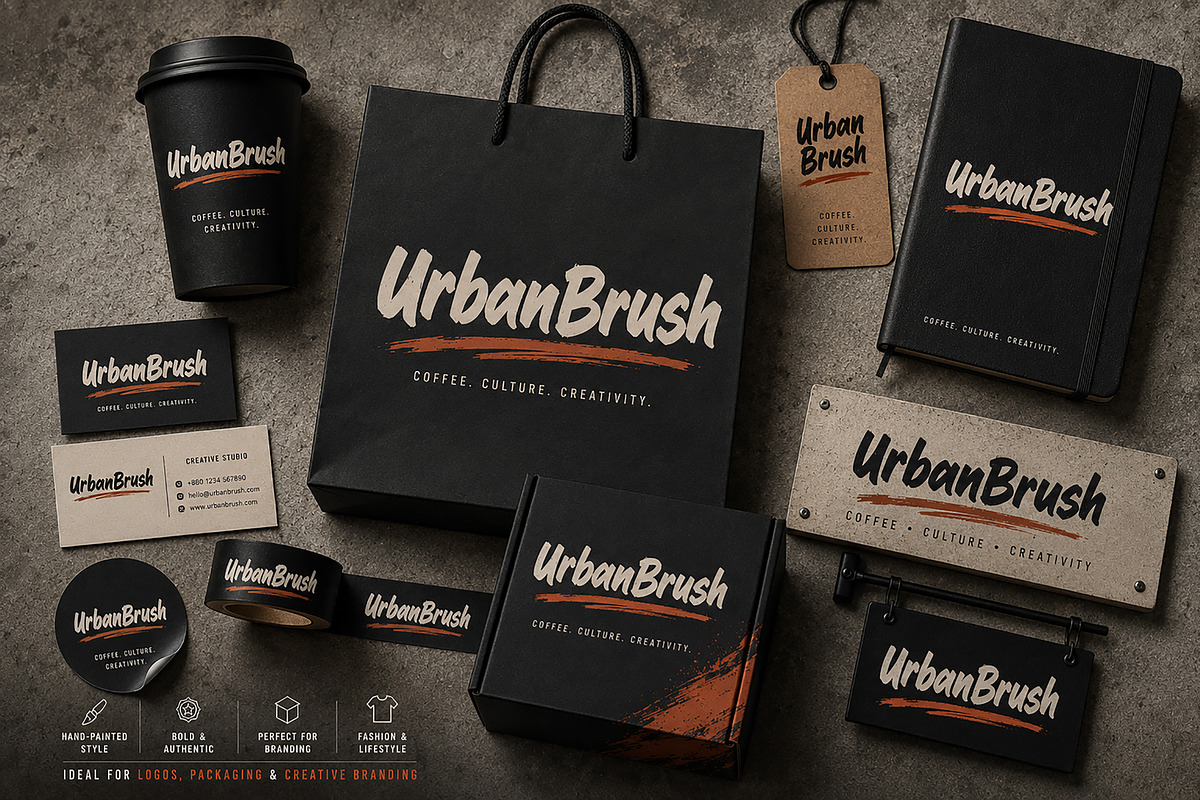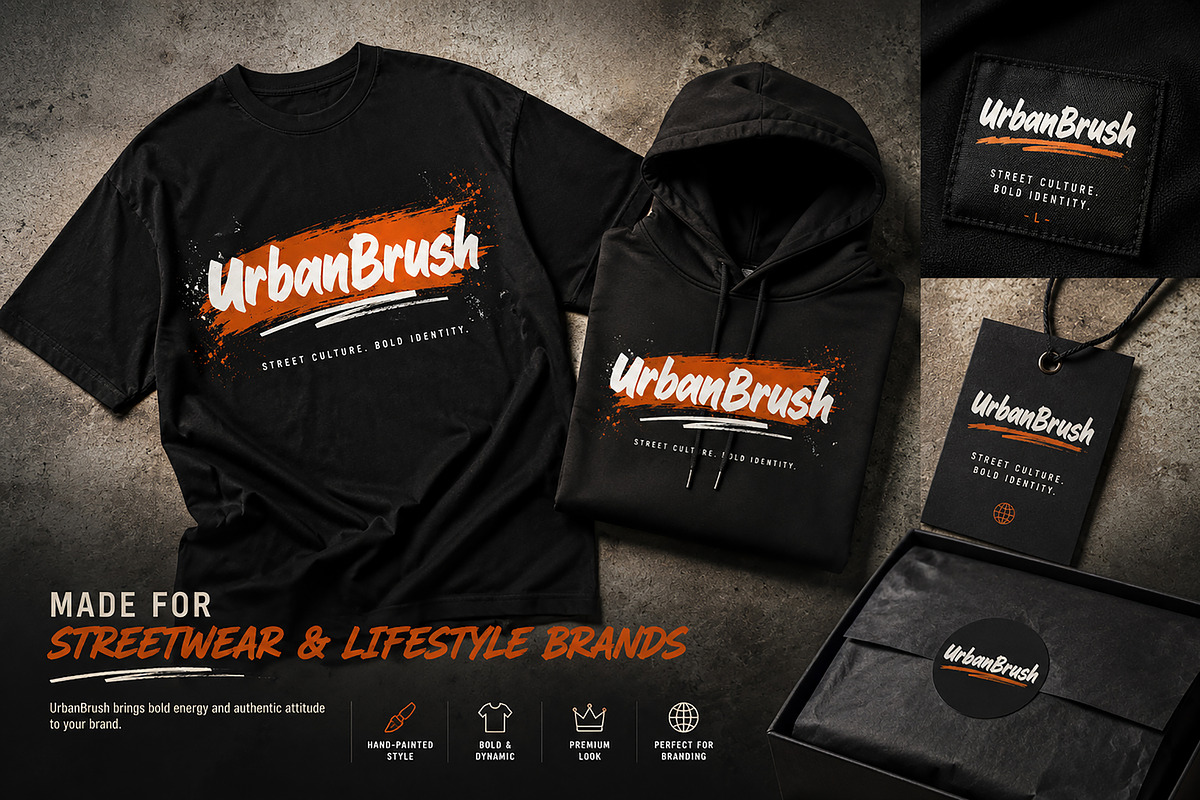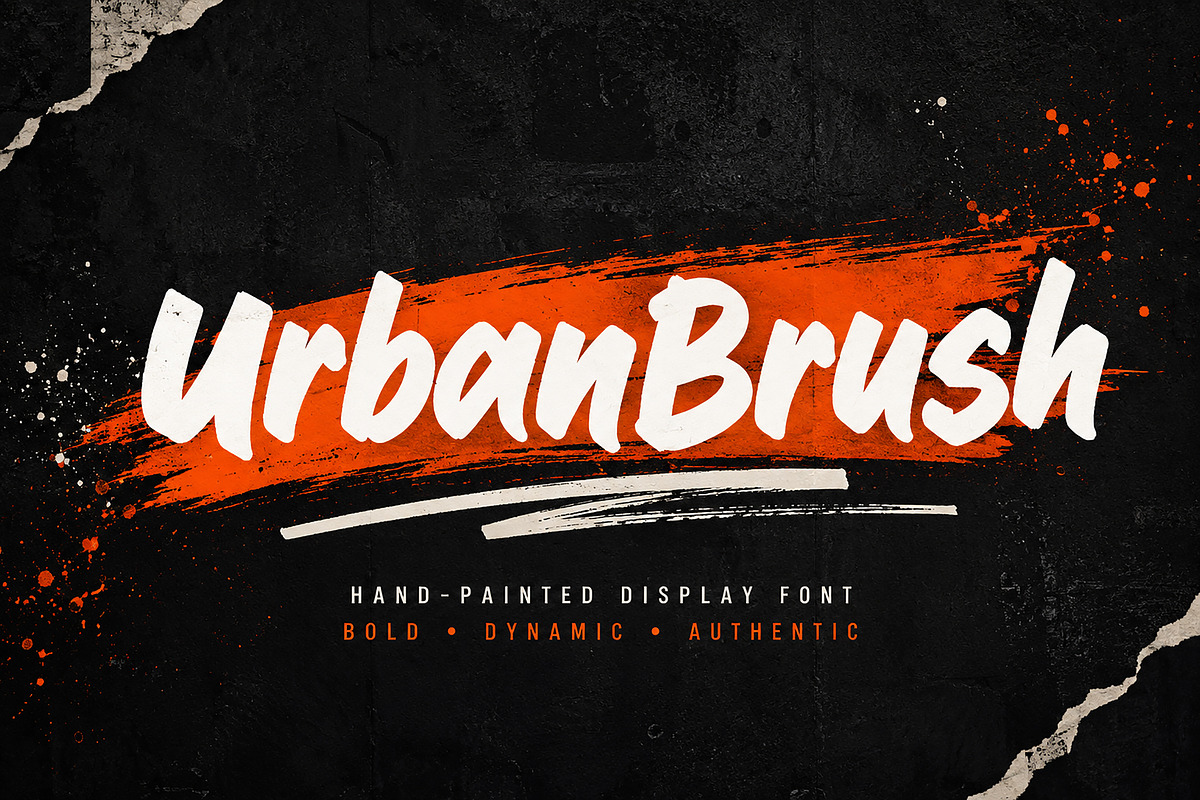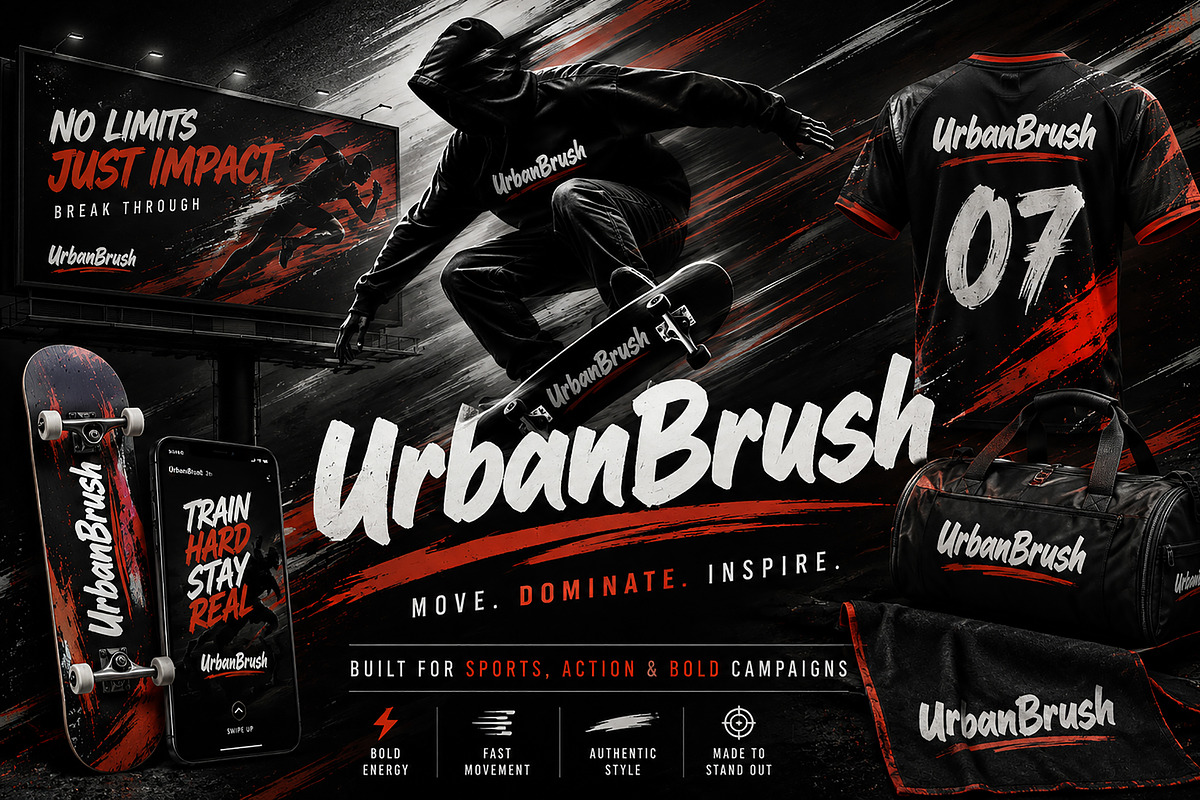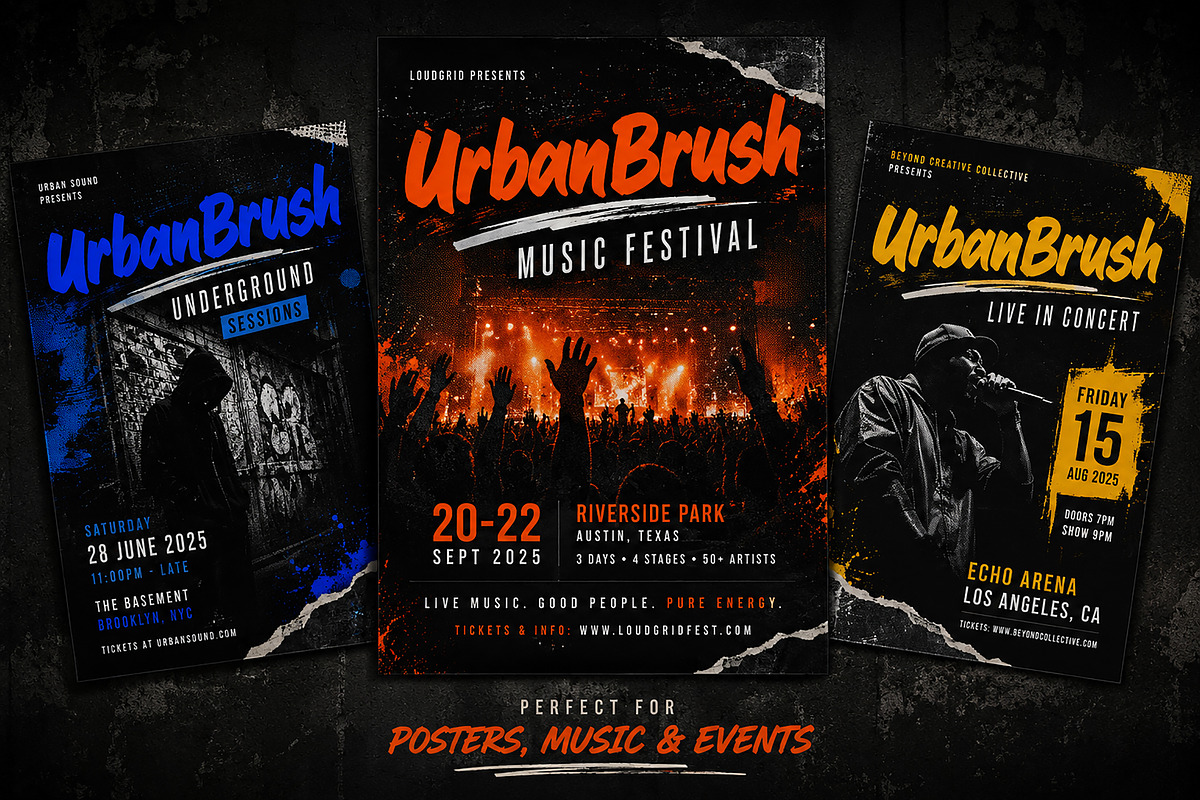
UrbanBrush
UrbanBrush – Hand-Painted Display Font
UrbanBrush is a bold hand-painted display font crafted for eye-catching headlines, logos, branding, posters, apparel, sports campaigns, and modern street-inspired designs. With its authentic brush texture and energetic strokes, it delivers a raw, expressive look while maintaining excellent readability at large sizes.
Whether you're designing a clothing brand, music festival poster, sports campaign, creative packaging, or social media artwork, UrbanBrush brings a powerful handcrafted personality to every project.
UrbanBrush
Bold Hand-Painted Display Font
UrbanBrush is a handcrafted brush display font inspired by street culture, urban art, and expressive brush lettering. Every letter is designed with natural brush movement and textured edges, giving your typography an authentic handmade appearance without sacrificing clarity.
Designed for designers who want bold visual impact, UrbanBrush works perfectly for logos, branding, posters, merchandise, packaging, advertising, apparel, and social media graphics.
Its energetic character makes it ideal for modern brands that need strong personality and instant attention.
Streetwear Branding
Fashion Logos
Sports Campaigns
Music Festival Posters
Creative Studio Branding
Coffee Shop Identity
Barber Shop Branding
Skateboarding Designs
Packaging
Product Labels
Advertising
YouTube Thumbnails
Event Promotions
Large Headlines
Display Typography
Authentic Hand-Painted Style
Bold Display Typeface
Natural Brush Texture
Strong Visual Impact
High Readability